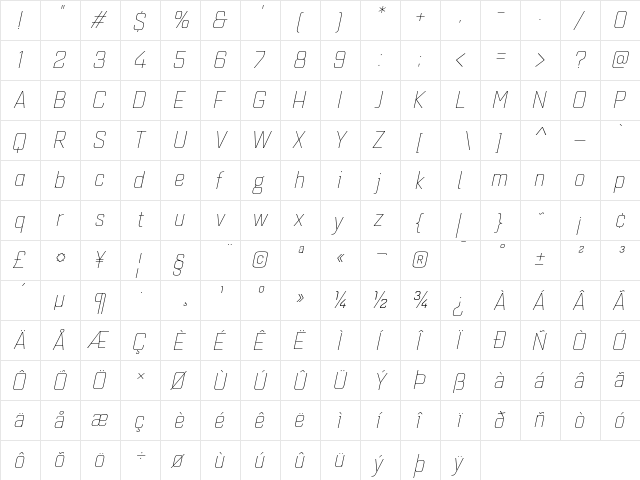
Quarca Norm Thin Italic Font Preview
Design Context for Quarca Typeface
Quarca offers clean, dependable letterforms without strong stylistic allegiance, making it a practical choice for designers who need flexibility. The dynamic lean of this cut emphasises speed and emphasis in any layout. The delicate stroke weight brings airiness and refinement to layouts.
Pro Tip: Try Quarca for annotation and caption copy alongside an upright companion — the contrast in angle creates a dynamic but ordered typographic system.